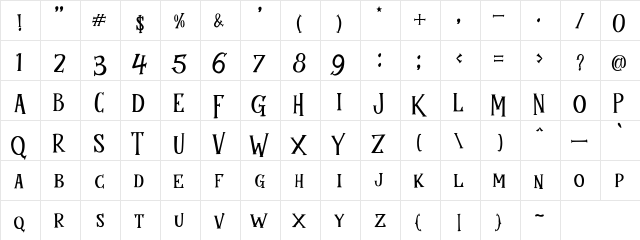
Mukadua Regular
Design Context for Mukadua Typeface
Mukadua is a composed and adaptable typeface that performs quietly and consistently across a wide range of design contexts.